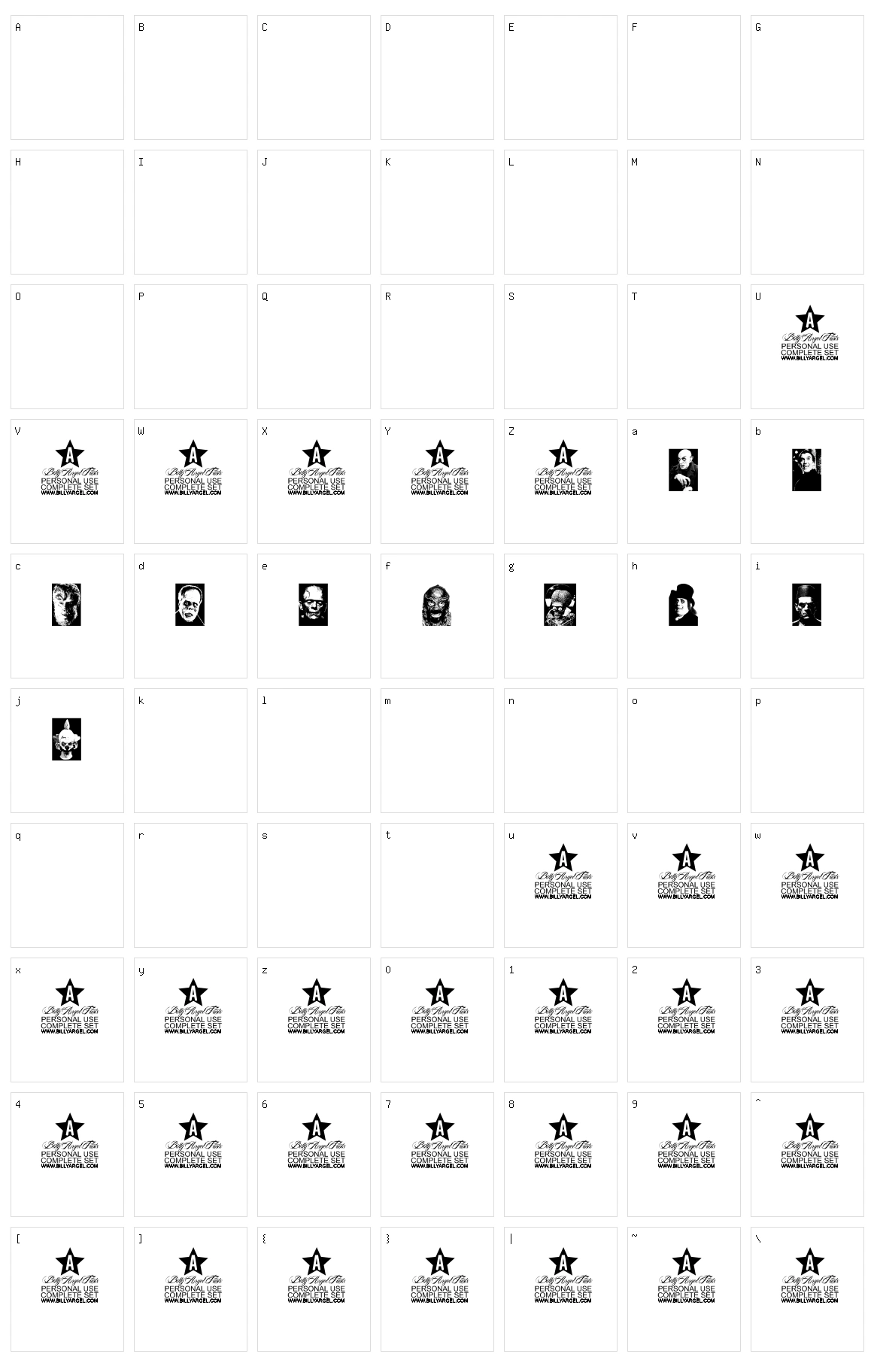
The free font Timemachine Halloween is carefully designed by Billy Argel Fonts ®, showcasing a thoughtful balance of creativity and usability and falls under the Retro font style. When you download the ZIP file, it contains only 1045.65 KB of font files, making it lightweight and quick to download. Please review the license details below to understand permitted usage and distribution rights. If license information is not available, we recommend using this font for personal projects only or contacting the author directly for commercial usage permissions.